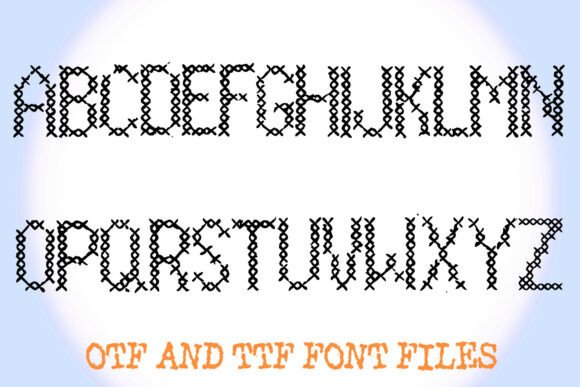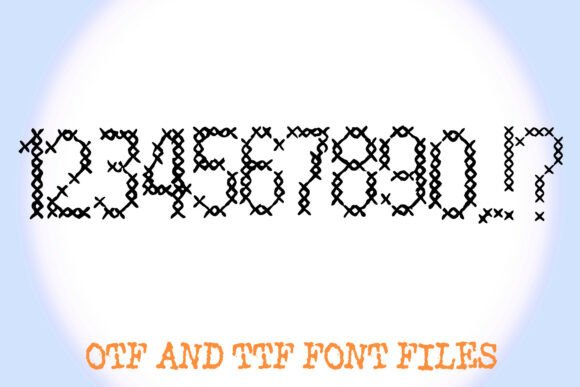
Introducing the Cross Stitch Embroidery Font: A Unique and Quirky Handwriting Lettering ABC Text Font
Are you a designer or crafter looking for a font that can add a personal touch to your projects? Look no further than the Cross Stitch Embroidery Font, a sewing style font that allows you to create your own words and color them to your vision. This font is perfect for anyone who loves cross-stitch embroidery and wants to bring that aesthetic to their designs.
What is the Cross Stitch Embroidery Font?
The Cross Stitch Embroidery Font, also known as the Cross Stitch Embroidery Handwriting Lettering ABC Text Font, is a unique and quirky font that mimics the look of cross-stitch embroidery. It features a handwriting-style lettering system, where each letter and number is designed to resemble a stitched pattern. The font is perfect for creating custom text, quotes, and phrases that can be used in a variety of contexts, from crafting and sewing projects to graphic designs and digital art.
Key Features of the Cross Stitch Embroidery Font
- Handwriting-style lettering: The font features a unique handwriting-style lettering system, where each letter and number is designed to resemble a stitched pattern.
- Cross-stitch embroidery aesthetic: The font is inspired by the classic cross-stitch embroidery technique, making it perfect for crafters and designers who love this style.
- Customizable: The font allows you to create your own words and color them to your vision, making it perfect for a wide range of projects.
- Quirky and playful: The font has a quirky and playful feel, making it perfect for adding a personal touch to your designs.
Uses for the Cross Stitch Embroidery Font
The Cross Stitch Embroidery Font is incredibly versatile and can be used in a wide range of contexts, including:
- Crafting and sewing projects: The font is perfect for crafters and sewers who want to add a personal touch to their projects, such as quilts, embroidery, and cross-stitch.
- Graphic design: The font can be used in graphic design projects, such as logos, branding, and advertising.
- Digital art: The font can be used in digital art projects, such as illustrations, paintings, and mixed media.
- Stationery and paper crafts: The font is perfect for stationery and paper crafts, such as cards, invitations, and journaling.
Tips for Using the Cross Stitch Embroidery Font
Here are some tips for using the Cross Stitch Embroidery Font:
- Experiment with colors: One of the best things about the font is the ability to color your text to match your vision. Experiment with different colors and combinations to find the perfect look for your project.
The Cross Stitch Embroidery Font is a unique and quirky handwriting lettering ABC text font that is perfect for designers and crafters who want to add a personal touch to their projects. With its cross-stitch embroidery aesthetic and customizable features, this font is sure to inspire creativity and bring a touch of whimsy to your designs. Whether you’re working on a crafting or sewing project, a graphic design project, or a digital art project, this font is sure to be a valuable addition to your toolkit.